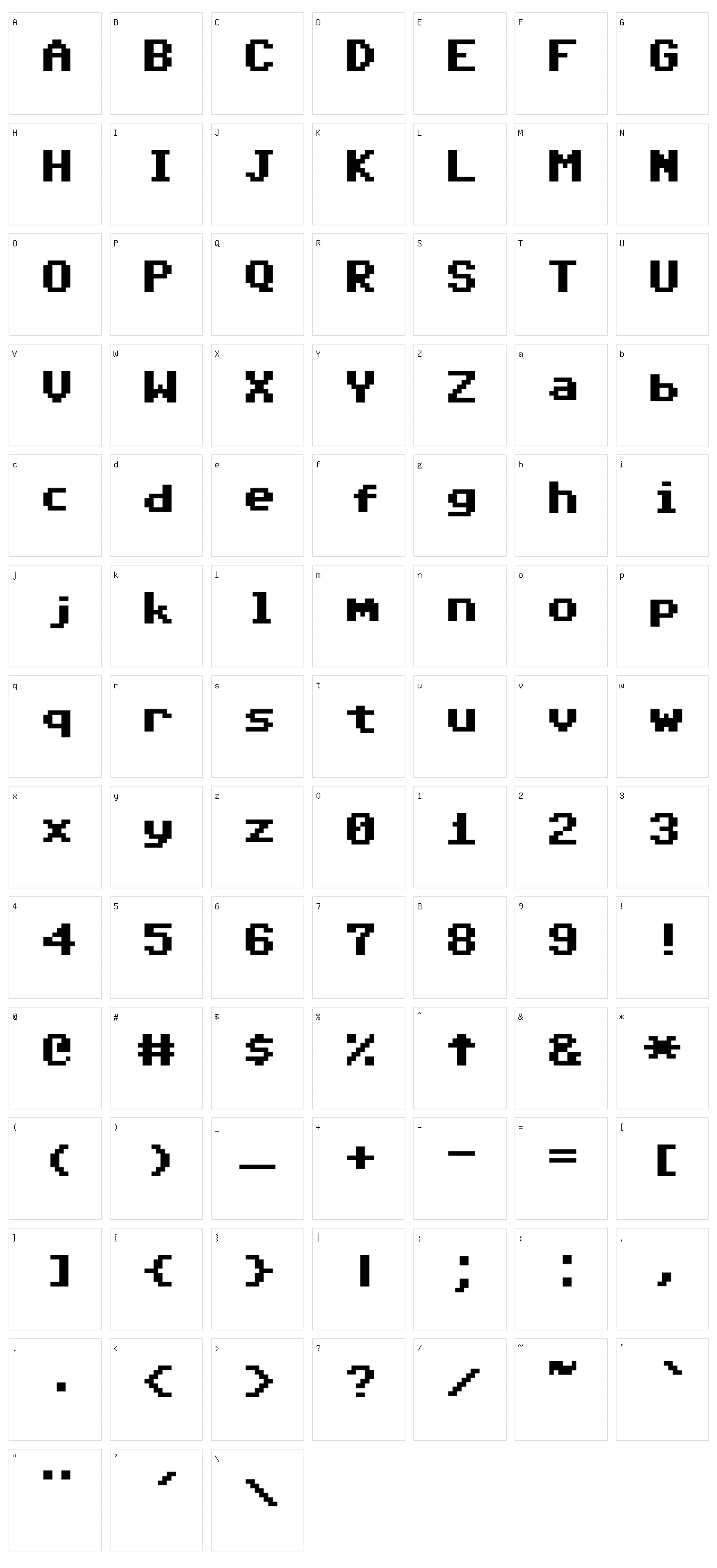
Commodore 64 Pixelized
Designed by: Devin Cook
The first computer I ever owned was a great little 8-bit wonder called the
Commodore 64. Due to the hours upon hours I spent both playing games and
learning to program (at age 12 in 1986) I gained a love for computers.
Needless to say, I created a true type font that mimics the machine's
character set. Each symbol that was present on the original Commodore 64
computer is available in the font.
I added a number of dingbats when possible. The "3D" pictures of the
Commodore 64 and 1541 Disk Drive were created from photos of my system.
A number of the dingbats are based on other dingbats available on the
Internet.
* I made a few very minor changes to a couple of characters
* The postscript names were fixed - I didn't have all the characters
named properly.
* The metrics for the font were perfected.
* The settings for the underline and strikethru effects (added by
Windows) were set correctly.
* The characters for the curly brackets were modified
* The font is now properly mapped to the Windows Symbol platform
and the Macintosh Latin platforms.
* Each character is now properly aligned and characters fit snugly
togather on different lines. This allows you to create Commodore
PET-ASCII art!
* I updated the Commodore Logo - which was slightly incorrect in the last
version.
* I rearranged all the dingbats
* The Windows Logo was replaced with the Commodore logo on all the dingbats.
The font still has all the stand-alone dingbats from version 5.2
* The simple dingbats for the C64 and 1541 Disk Drive were fixed.
* The Pac-Man dingbats were fixed
* Atari logo was fixed
* The Amiga symbol was added.
* The mouse graphic was made "white" and the Commodore logo was added
* A number of new dingbats were added. Some of the company names were
removed to make room. The new characters are as follows: "White" Commodore
logo, Computer Key, Seal, Mousepad, Sign, Gift, Muscle, Framed Logo, Note,
Award, Logo in a Circle, and a computer monitor.
* I fixed an error in the uppercase "M" and all characters were aligned.
* Commodore & Amiga logos
* Simple Commodore 64 & 1541 Disk Drive
* Commodore 64 and 1541 Disk Drive simple icons
* Commodore 64 and 1541 Disk Drive (created from ACTUAL photos of my system)
* 5.25" disk in Commodore sleeve and 5.25" without
* "READY." prompt
* Commodore 64 logo
* Mouse
* Pac-Man (facing 4 directions), ghosts (Inky, Blinky, Pinky & Clyde),
pellets, Pac-Man logo
* Logos for Intel Inside, Microsoft, Windows, Internet Explorer
* Common windows (one with a Windows logo), folders, documents, disks ...
* Minimize, Maximize, Normalize, Close icons
* Apple logo, Macintosh logo, Mac-OS, Macintosh boot, Apple disk, Quicktime
* Logos for other companies:
Microtek, AST, Atari, Sun, Franklin, iomega, Xerox, HP, IBM, Fugitsu,
Epson, Acer, Compaq, Intel, 3 Com, NEC, Digital, Seagate, Novell,
Canon, NeXt